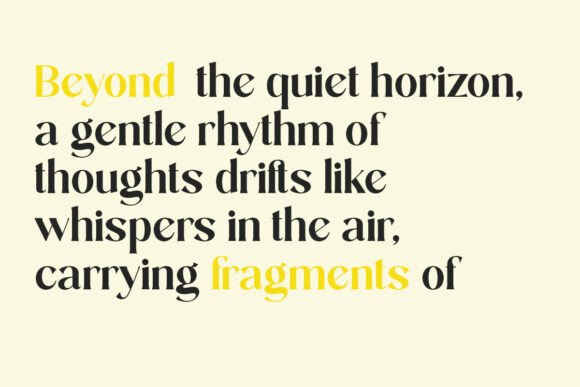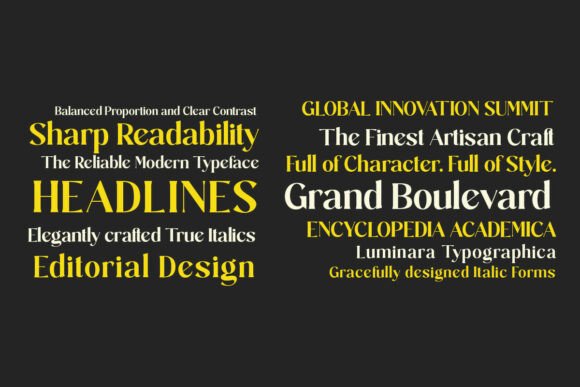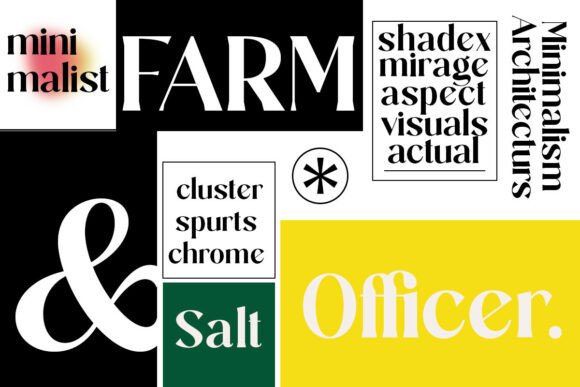
Introduction to Sarghet Bold Font
As a designer, there’s nothing quite like the thrill of bringing a project to life. You’re pouring over ideas, sketching out concepts, and searching for the perfect design resource to tie everything together. And then, it happens – you stumble upon that one font that makes your entire creative vision click. For many designers, that font is the Sarghet Bold Font.
With its elegant and modern character, the Sarghet Bold Font is a game-changer for any high-quality design project. Whether you’re working on a premium product packaging, a branding campaign, or an editorial piece, this font’s luxurious and artistic feel is sure to elevate your work. Plus, with its transparent background and bold yet soft serif style, it’s easy to read and full of personality – making it a valuable addition to any designer’s toolkit.
Key Features of Sarghet Bold Font
- High-quality typography with a bold, modern design, ideal for creative projects that require a striking visual impact.
- Comes with a transparent background, allowing for seamless integration with any design resource, from logos to graphics.
- Unique characteristics include a strong x-height and a subtle, yet effective, texture that adds depth to any design.
- Perfect for designers seeking a bold, eye-catching font that can elevate their creative project and leave a lasting impression on their audience.
Honest Review: Sarghet Bold Font
I recently stumbled upon the Sarghet Bold Font, a free download that’s been making waves in the design community. As a designer, I was excited to dive in and see what it had to offer.
- High-quality glyphs: The Sarghet Bold Font boasts crisp, well-designed glyphs that are perfect for a variety of creative projects.
- Transparent background: The font’s transparent background makes it easy to overlay on images or videos, adding a professional touch to any design.
While the Sarghet Bold Font is a solid addition to any design resource, it’s not without its limitations. The font is limited to a single weight, which may not be suitable for projects that require a range of font weights.
Overall, I’m impressed with the Sarghet Bold Font. Its high quality and transparent background make it a great choice for designers working on creative projects. While it may not be perfect, it’s a valuable resource that’s worth checking out.
Use Sarghet Bold Font for headings and titles to create a striking visual effect. You can also use it for body text to add a touch of sophistication to your design. Additionally, use a transparent background to make your text stand out.
Sarghet Bold Font is ideal for use in brochures, posters, business cards, and other marketing materials. It’s also a great choice for creating a consistent brand identity across all your marketing channels.